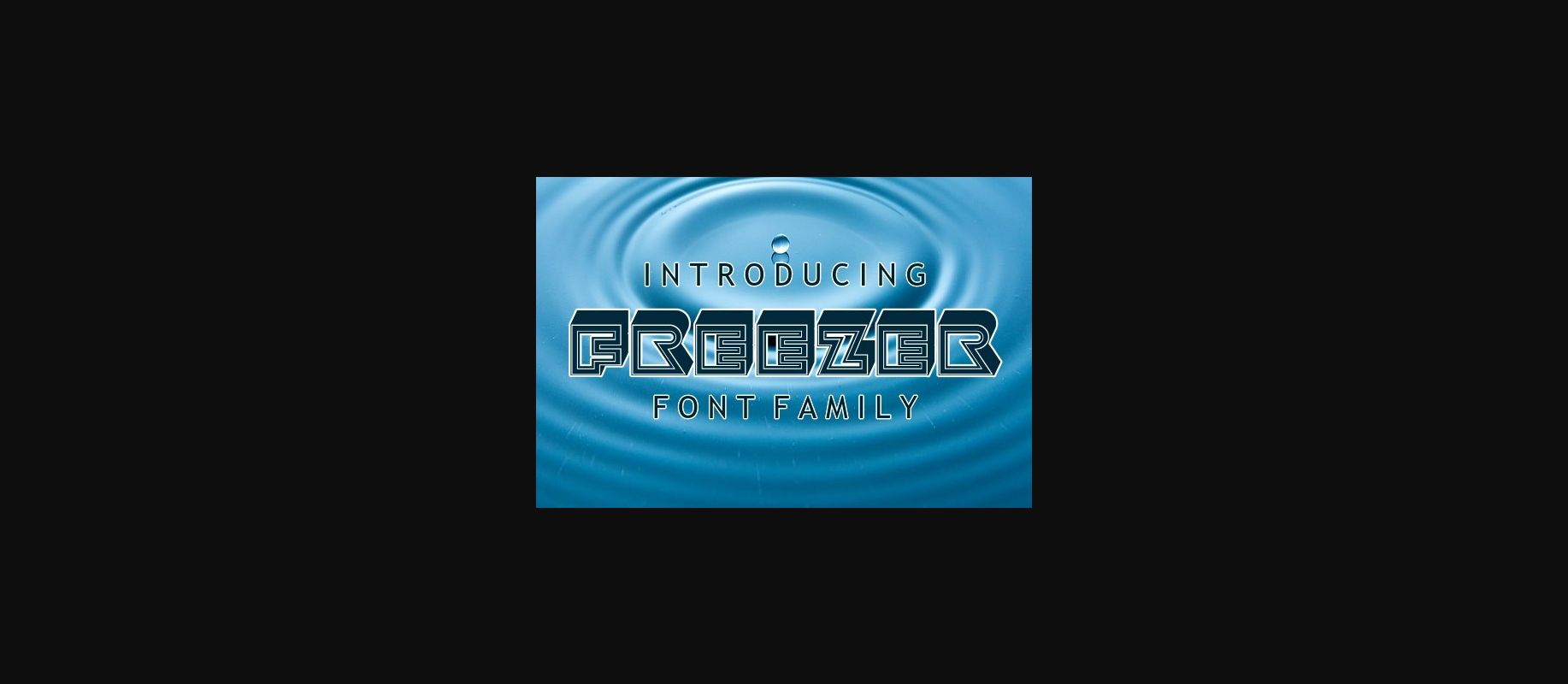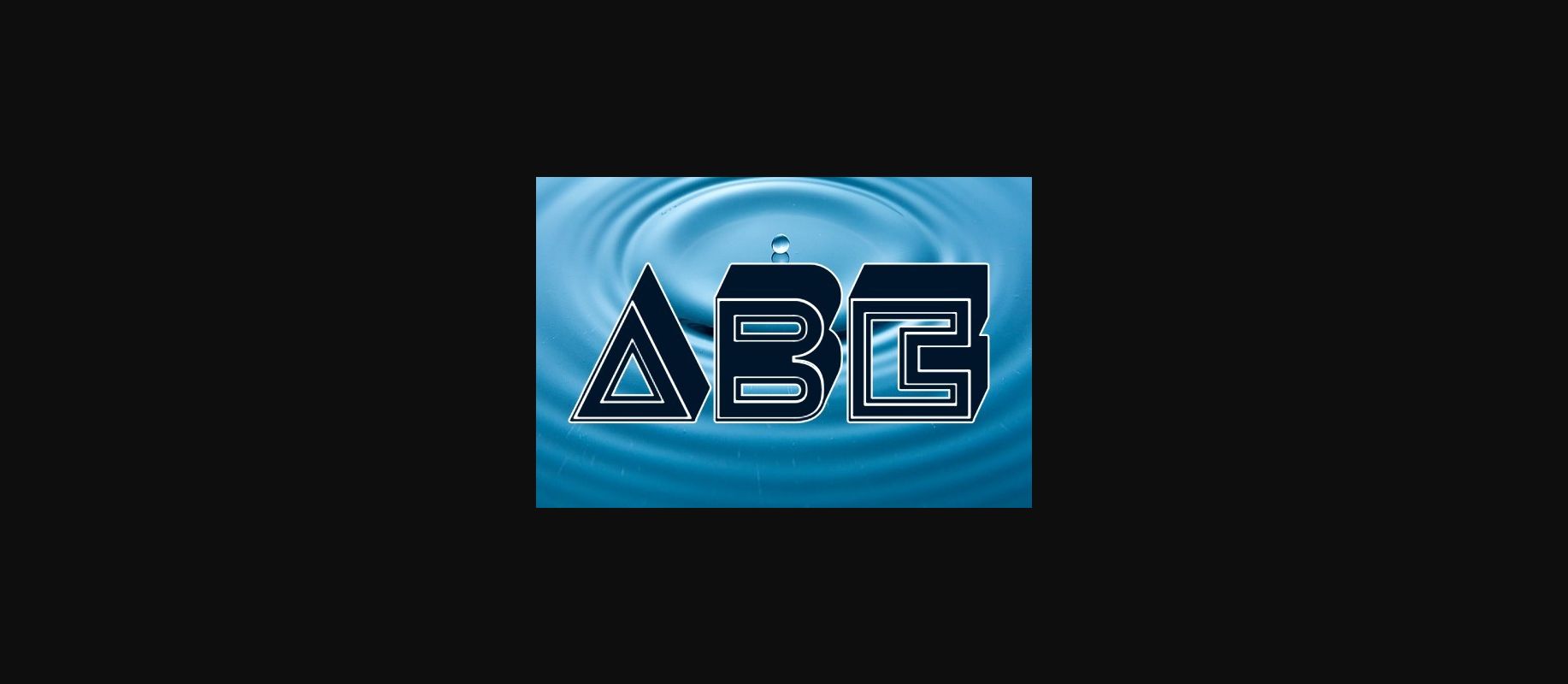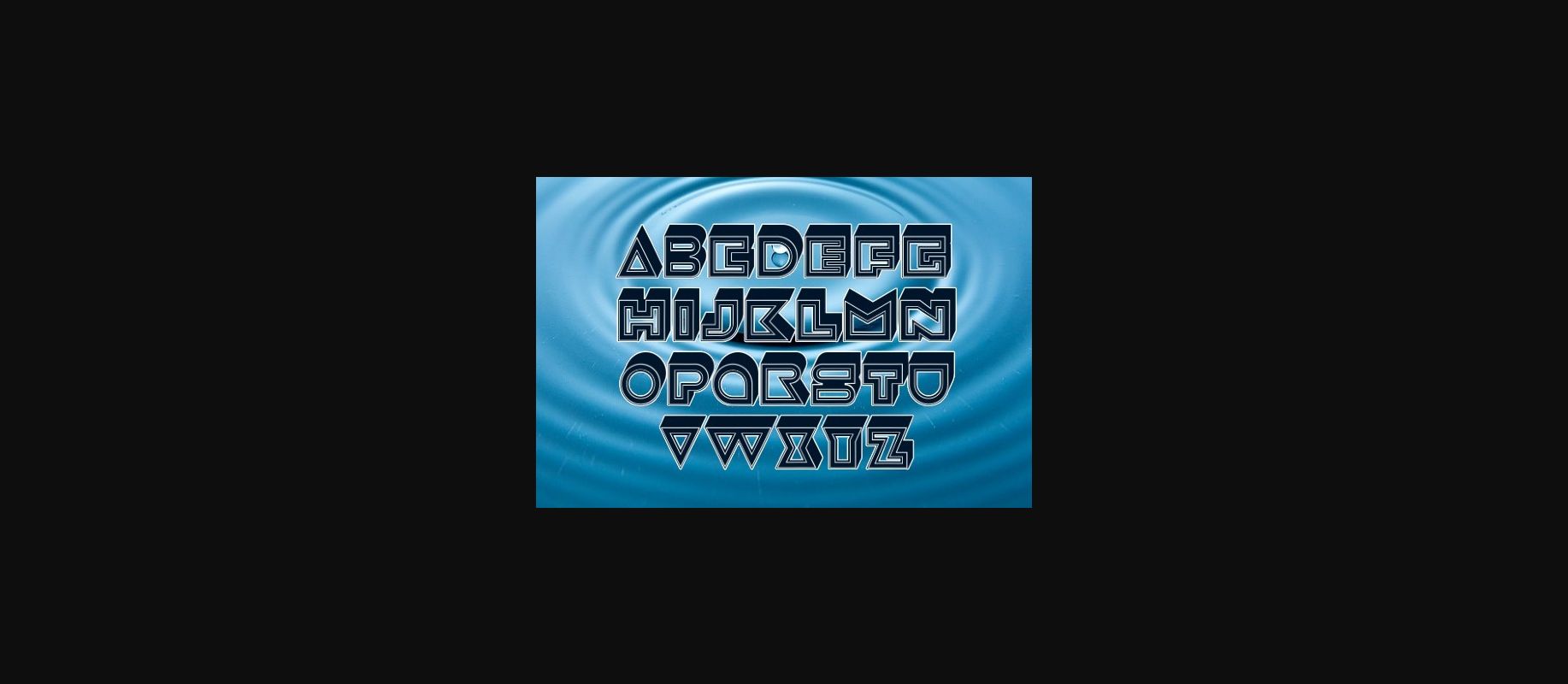
About Freezer Font
Freezer is an awesome 3D decorative font family that would look stunning on any creative project that needs bold and unique typography!